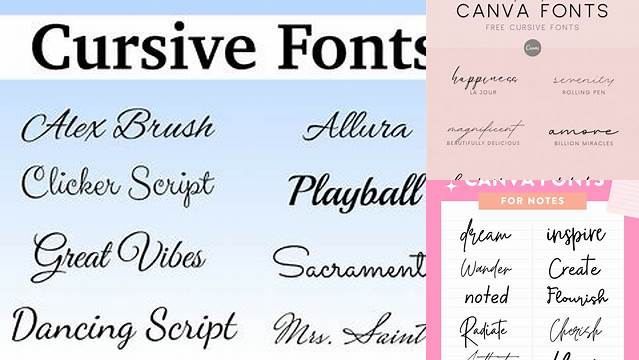
Cursive Fonts: Free Downloads For 2026
Hey guys! Are you on the hunt for some stunning cursive fonts to elevate your projects in 2026? You've landed in the right spot! In this comprehensive guide, we'll dive deep into the world of cursive fonts, exploring why they're so popular, where to find the best free downloads, and how to use them effectively. Whether you're a seasoned designer or just starting out, this article will equip you with everything you need to know about cursive fonts in 2026. So, let's get started!
Why Choose Cursive Fonts?
Cursive fonts have a unique charm that sets them apart from other typefaces. Their flowing, handwritten style adds a touch of elegance and personality to any design. But why are they so popular, and when should you consider using them? Let's break it down:
First off, cursive fonts bring a sense of sophistication and class. Think about wedding invitations, luxury branding, or high-end product packaging. The graceful curves and intricate details of cursive fonts can instantly elevate the perceived value and quality of your design. They evoke a sense of tradition and craftsmanship, which is perfect for projects that aim to communicate elegance and refinement. Imagine a beautifully crafted logo for a boutique, or a heartfelt letter written in an exquisite cursive font β the impact is undeniable.
Secondly, cursive fonts add a personal and human touch. In a world dominated by digital communication, handwritten styles can create a warm and inviting feeling. This is especially useful for projects that need to establish a connection with the audience, such as thank-you notes, personalized gifts, or branding for businesses that emphasize customer relationships. A well-chosen cursive font can make your message feel more intimate and sincere, fostering a stronger emotional connection with your readers. For instance, a small bakery might use a charming cursive font in their logo and marketing materials to convey a sense of homemade goodness and personal care.
Another key benefit of using cursive fonts is their versatility. While they are often associated with formal and elegant designs, cursive fonts can also be adapted for more casual and playful projects. There's a wide range of styles available, from traditional calligraphy-inspired scripts to modern and whimsical variations. This means you can find a cursive font that fits almost any design aesthetic. For example, a flowing, elegant cursive might be perfect for a wedding invitation, while a bolder, more playful script could be ideal for a children's book or a fun marketing campaign. The key is to choose a font that matches the overall tone and message of your project.
However, it's important to use cursive fonts judiciously. While they can add a lot of character and style, they can also be difficult to read if overused or applied in the wrong context. Generally, cursive fonts are best suited for headings, titles, and short phrases, rather than large blocks of text. Imagine trying to read an entire novel written in a flowing cursive β it would be quite a challenge! For body text, it's usually better to stick with more legible fonts like serif or sans-serif styles. Think of cursive fonts as the decorative element that adds flair and personality, while other fonts provide the clarity and readability needed for the main content.
In addition, the context of your project should guide your choice of cursive font. A very formal and elaborate script might be perfect for a black-tie event invitation, but it would feel out of place on a website for a tech startup. Similarly, a playful and informal cursive could work well for a children's brand, but it wouldn't be appropriate for a serious legal document. Understanding your target audience and the message you want to convey is crucial in selecting the right font. By carefully considering these factors, you can harness the power of cursive fonts to create designs that are both beautiful and effective.
In summary, cursive fonts are a fantastic tool for adding elegance, personality, and a personal touch to your designs. Their versatility allows them to be used in a wide range of projects, from formal invitations to casual branding. However, it's essential to use them wisely, considering readability and the overall context of your design. When used correctly, cursive fonts can truly elevate your work and leave a lasting impression.
Top Websites for Free Cursive Fonts in 2026
Finding the perfect cursive font can feel like searching for a needle in a haystack. But don't worry, guys! There are some amazing websites out there that offer a treasure trove of free fonts, including a wide variety of stunning cursive styles. In this section, we'll explore some of the best websites for downloading free cursive fonts in 2026, making your font-hunting journey much smoother.
First up, we have Google Fonts. This is a go-to resource for many designers, and for good reason. Google Fonts boasts a vast library of high-quality fonts, all of which are free to use for both personal and commercial projects. The best part? Google Fonts makes it incredibly easy to browse and filter fonts, so you can quickly narrow down your search to cursive styles. You can even preview how the fonts look in different sizes and contexts, ensuring you find the perfect match for your project. Plus, Google Fonts integrates seamlessly with many design tools and websites, making it a convenient option for any designer. The platform's user-friendly interface and extensive collection make it a top choice for finding beautiful and functional fonts.
Next, let's talk about DaFont. This website is a true gem for font enthusiasts, offering a massive collection of fonts submitted by designers from around the world. While not all fonts on DaFont are free for commercial use, the site makes it easy to filter by license type, so you can quickly find fonts that are free for both personal and commercial projects. DaFont's cursive font selection is particularly impressive, with styles ranging from elegant calligraphy to playful scripts. The site also features a helpful preview tool that allows you to type in your own text and see how it looks in each font. The vibrant community and constantly updated library make DaFont a fantastic resource for discovering unique and creative cursive fonts.
Well, guys, we've covered a lot about cursive fonts! From their unique appeal to where to find them and how to use them effectively, you're now equipped with the knowledge to make your projects shine in 2026. Remember, cursive fonts are a fantastic way to add a touch of elegance, personality, and human connection to your designs. By choosing the right font and using it wisely, you can create visuals that not only look beautiful but also communicate your message with style and grace. So, go forth and create something amazing with those stunning cursive fonts you've discovered. Happy designing!